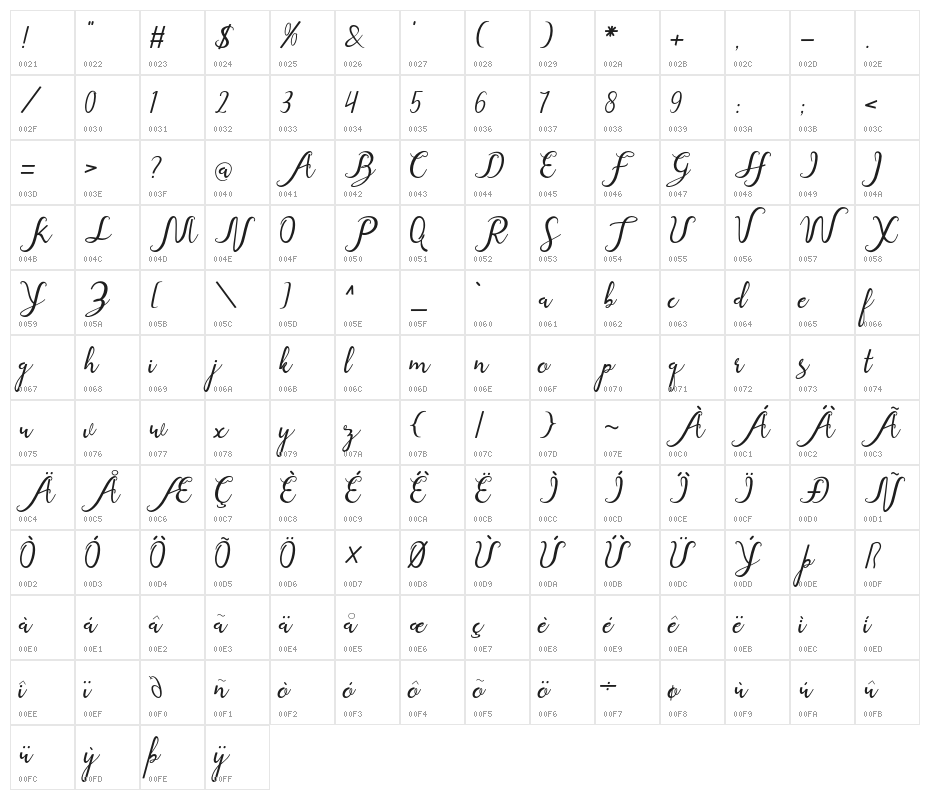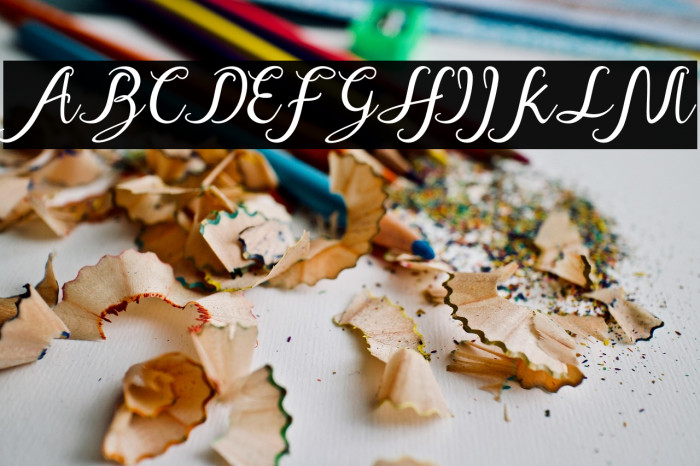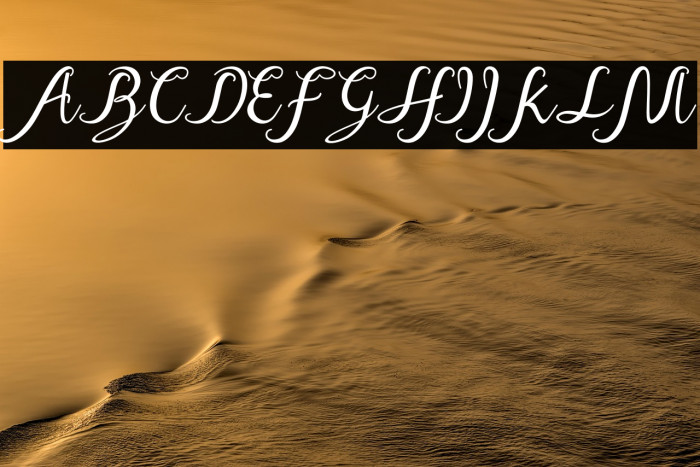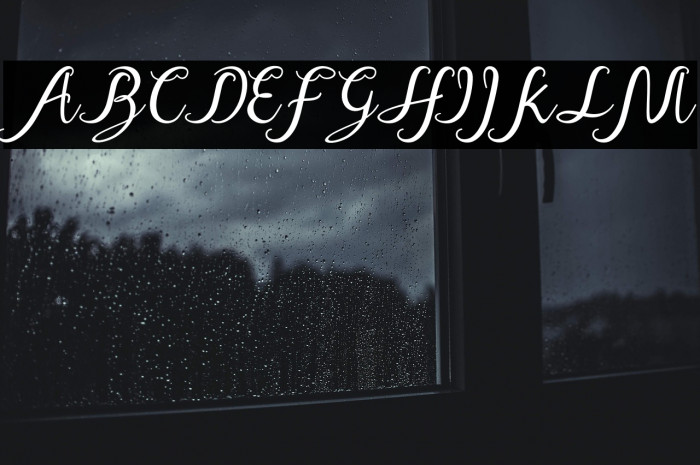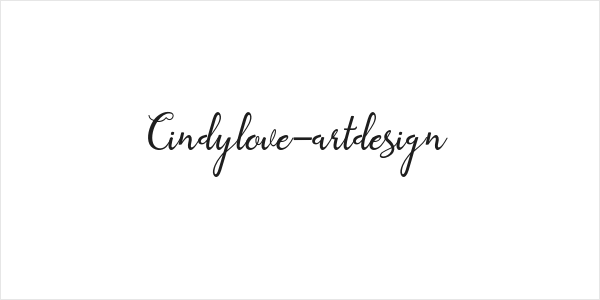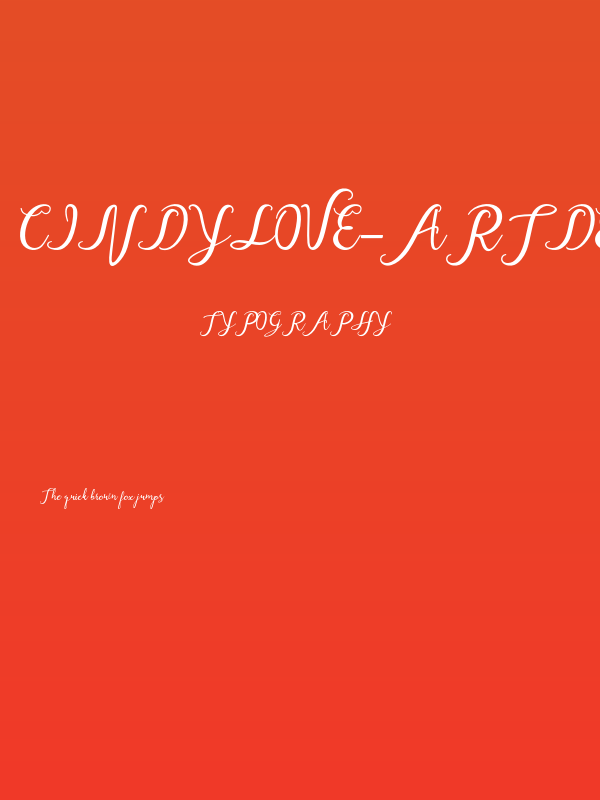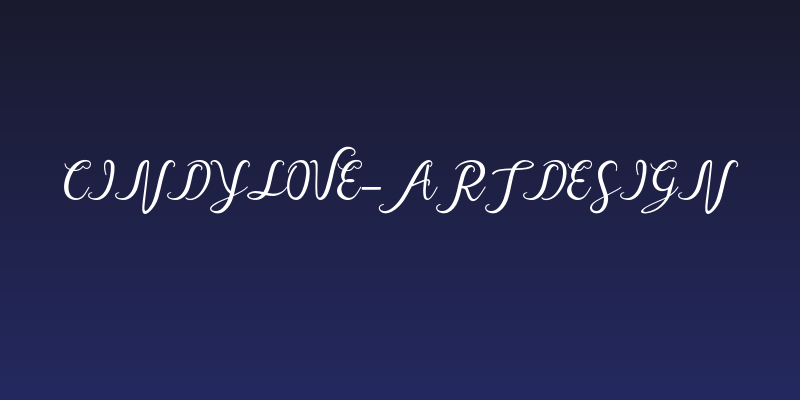
Cindylove-artdesign Font
Cindylove-artdesign Description
This font exudes elegance and fluidity, characterized by its cursive script style that mimics the flow of handwriting. The letters are interconnected, creating a seamless and graceful appearance. The uppercase letters are slightly more ornate, with gentle curves and loops, while the lowercase letters maintain a consistent and smooth flow. The numerals and special characters are designed to complement the overall script style, maintaining the same level of sophistication and fluidity. This font is perfect for projects that require a touch of elegance and personal flair.
| Proposed Projects | Ideal for wedding invitations, greeting cards, personal branding, and elegant logo designs. |